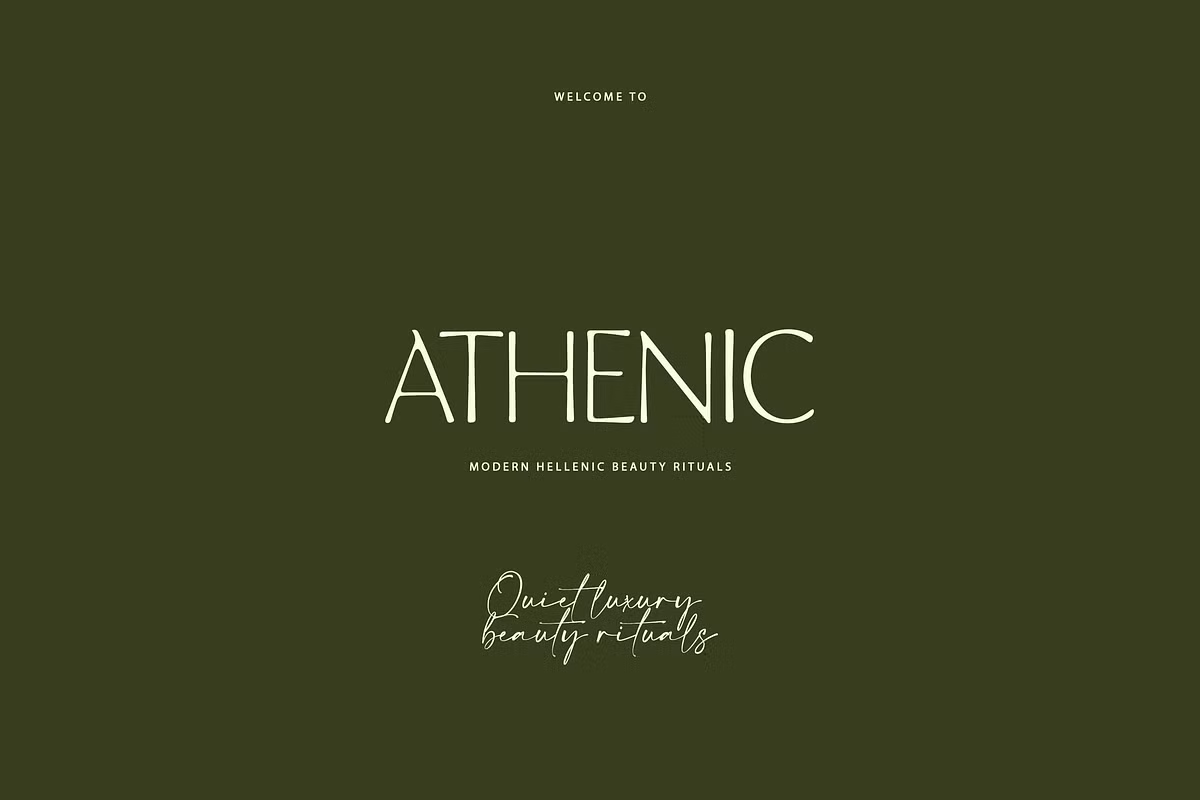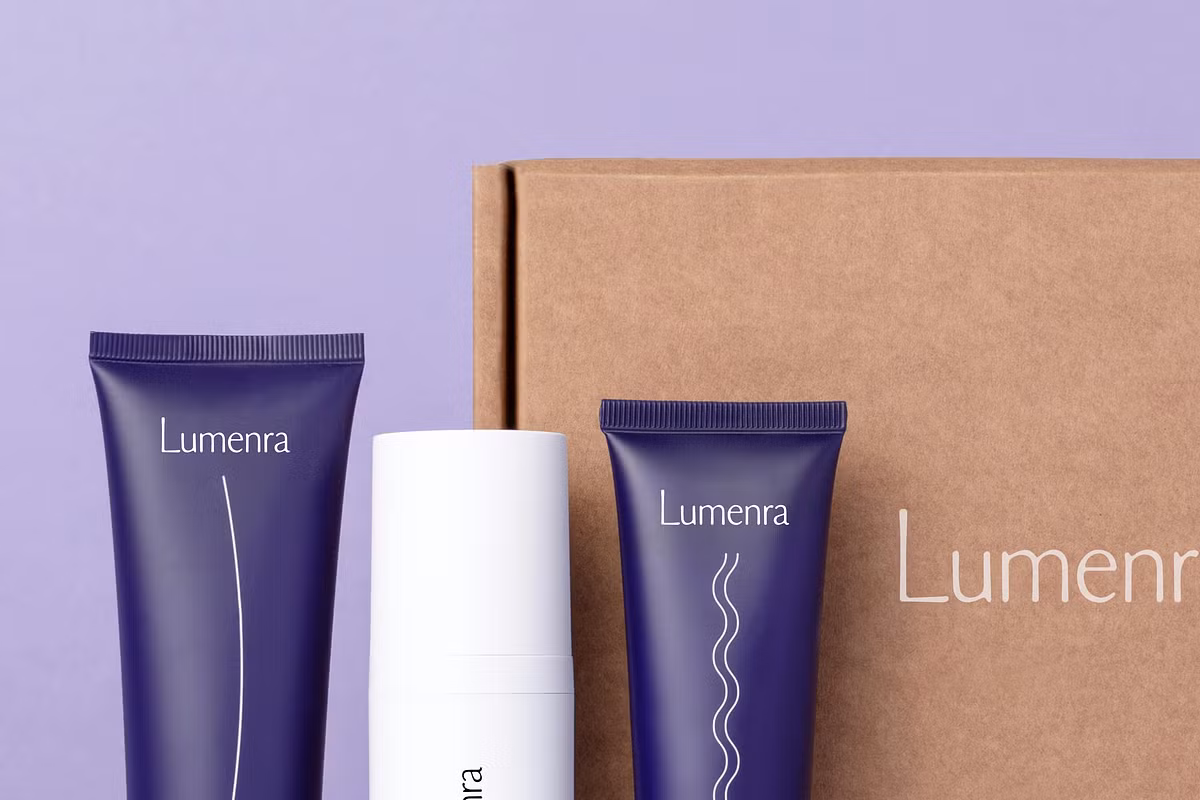
Gaian Font: Luxurious Hand-Lettered Display Typeface Inspired by Nature
Introducing Gaian: A Luxurious Hand-Lettered Display Typeface
The Gaian font is really beautiful, with a handmade feel that’s inspired by the Mediterranean’s natural beauty. It’s got a classic, elegant look that comes from Greek design, which gives it a sense of calm and sophistication. When you use this font, it can make any project look more luxurious and stylish, with its unique letter shapes and simple, consistent rhythm. It’s a great choice if you want a look that’s both high-end and timeless.
Design Style of Gaian
Gaian’s design is all about tall, beautifully shaped letters that give off a sense of power and elegance. It’s like a taste of the Mediterranean, where simple things are also really beautiful. Every letter is made to be a perfect mix of art and readability, so it looks great and is easy to read too. The style is really special because it combines strength and grace in a way that’s hard to find. Overall, Gaian’s design is a great example of how simplicity and elegance can come together to create something really stunning.
The use of earth tones in Gaian reflects the natural landscape of the Mediterranean, making it an ideal choice for projects that aim to evoke serenity and authenticity. Whether you’re designing for print or digital platforms, Gaian’s refined aesthetic ensures that your message is conveyed with sophistication.
Gaian is a unique find in a world where design trends are always changing. It has a classic feel that never goes out of style, which is why it’s more than just a font – it’s a way to show off your sense of style. Whether you’re working on a branding project, creating an ad, or just need something special for a design project, Gaian is the perfect choice when you want to add a little luxury to your work. Its timeless quality makes it stand out from other fonts, and it’s a great way to give your project a high-end feel.
Character Sets and Language Support
The Gaian font features a comprehensive character set, ensuring versatility and usability across various languages and design contexts. This includes uppercase and lowercase letters, numerals, punctuation, and special characters. Such inclusivity allows designers to create content that resonates with a global audience.
This extensive character support is particularly beneficial for international brands looking to maintain their identity across different markets. The elegant letterforms of Gaian ensure that your text will always appear polished, no matter the language.
The way Gaian is designed helps it stay clear and easy to read, even when it’s small. This makes it a great choice for lots of different uses, like big headings or smaller body text. Because it’s so versatile, Gaian works well for things like logos, packaging, and more – it can fit in with many different design projects.
Use Cases for Gaian
There are numerous applications for the Gaian font, making it a versatile tool for any designer. Here are some notable use cases:
- Branding: Gaian’s luxurious appearance makes it ideal for high-end brands in fashion, beauty, and lifestyle sectors, helping to create a memorable and sophisticated brand identity.
- Event Invitations: The elegance of Gaian adds a touch of refinement to invitations for weddings, galas, or other special occasions, ensuring that your event stands out from the crowd.
- Packaging Design: Whether for gourmet food products or artisanal goods, Gaian’s earthy aesthetic can enhance packaging, making it more appealing to consumers seeking quality and authenticity.
- Website Design: In digital applications, Gaian can be used for headers, banners, or call-to-action buttons, adding a layer of sophistication to your online presence.
Pairing Suggestions for Gaian
When it comes to pairing fonts, Gaian excels in combination with other typefaces that complement its unique style. Here are a few pairing suggestions:
Gaian and Sans-Serif Fonts: Pairing Gaian with a clean sans-serif font like Montserrat or Open Sans can create a beautiful contrast, balancing elegance with modern simplicity. This combination works well in both print and digital formats.
For a classic look, you could pair Gaian with a traditional serif font, such as Merriweather or Playfair Display. This combination gives your design a luxurious feel and is also easy to read. The serif font adds a touch of sophistication, which complements Gaian nicely. When you put them together, you get a beautiful balance of style and readability. This makes it perfect for designs where you want to convey a sense of elegance and refinement.
Gaian with Script Fonts: To add a whimsical touch, try pairing Gaian with a delicate script font. This combination works wonderfully for invitations or branding materials, creating an inviting and personal touch.
The Gaian font is really something special – it’s a beautifully hand-lettered display typeface that adds a touch of natural elegance to any project. With its unique, sculptural letters and simple rhythm, it’s inspired by the rich culture of the Mediterranean. This makes it a great choice for designers who want to create a sense of authenticity and sophistication in their work. Whether you’re working on a branding project, creating something for print, or designing for digital, the Gaian font is sure to deliver your message with style and poise. Its earthy feel and luxurious look make it perfect for adding a high-end touch to any design.